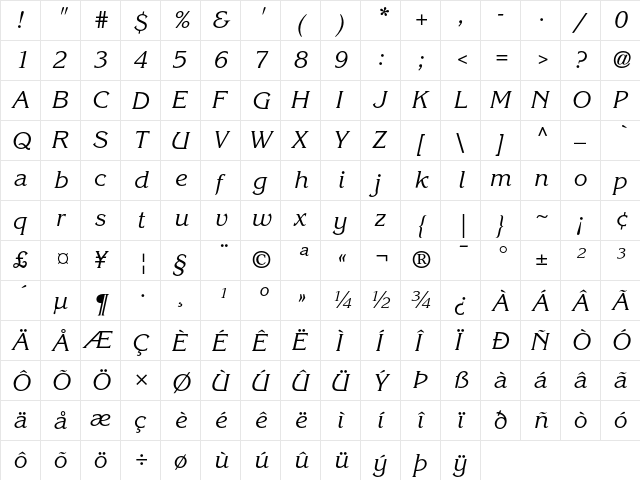
ITC Korinna Kursiv Regular Font Preview
ITC Korinna Kursiv Regular
Design Context for ITC Korinna Typeface
ITC Korinna takes a measured approach to typography — its balanced proportions and neutral character make it a reliable workhorse for both digital and print work. The slanted form adds forward momentum and visual energy.
Pro Tip: Use ITC Korinna for emphasis, pull quotes, and subheadings where its slanted energy can add rhythm to the layout.